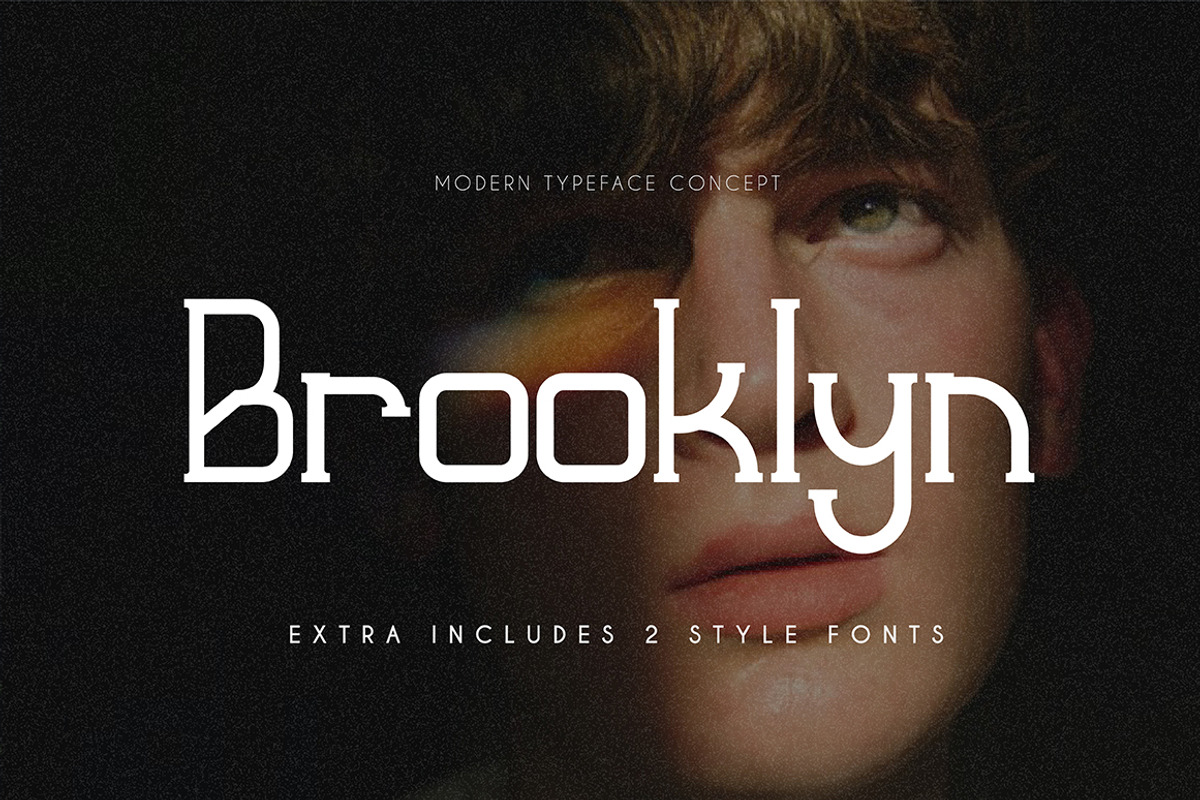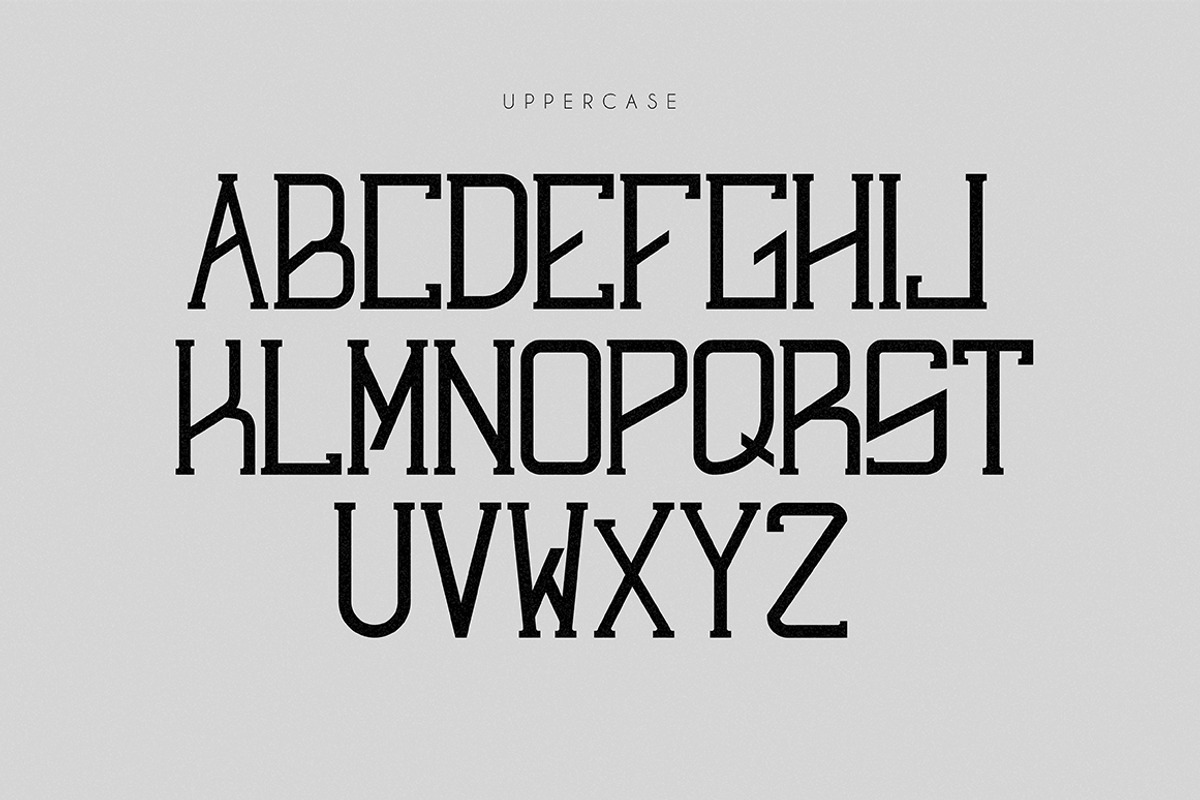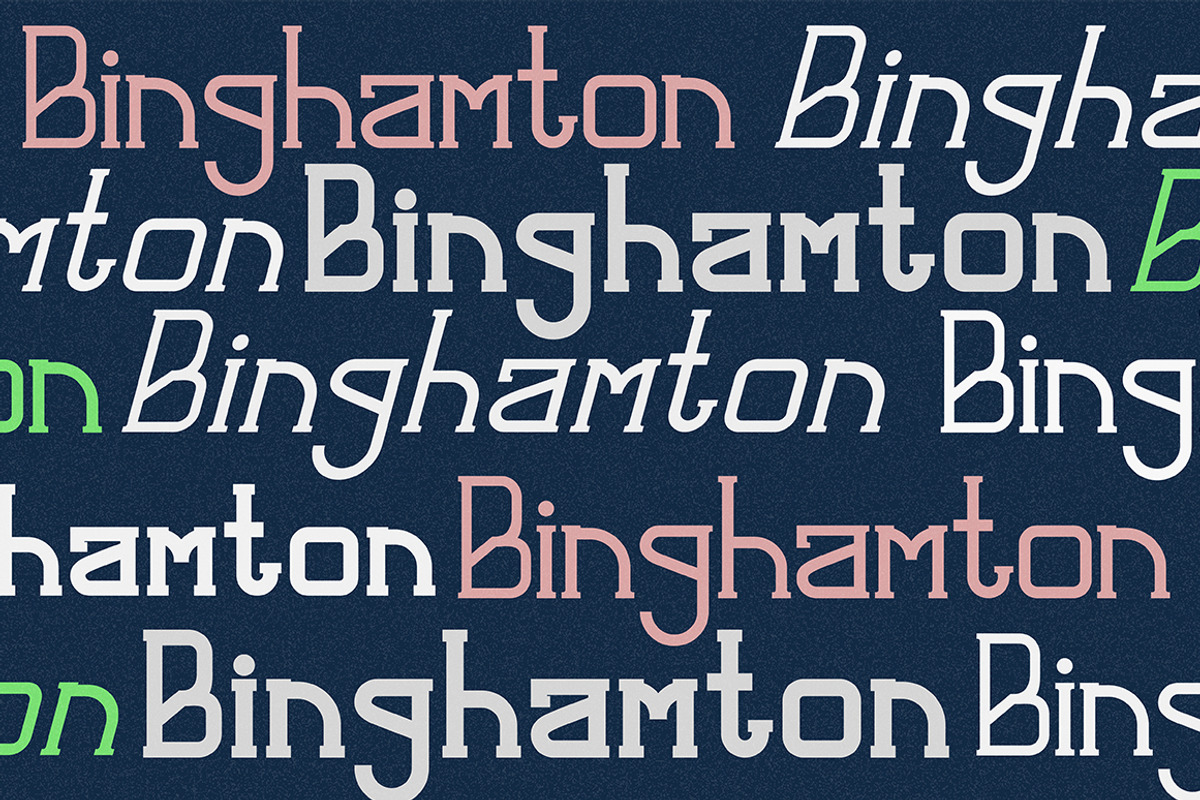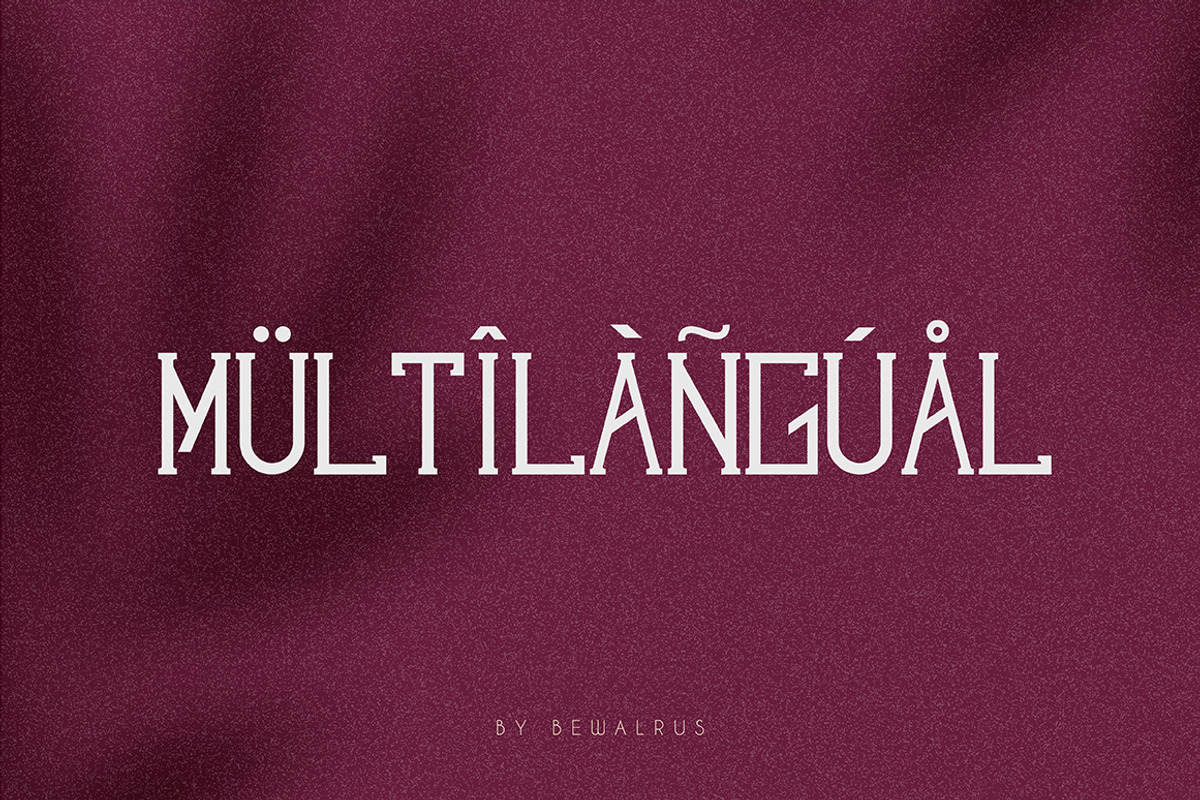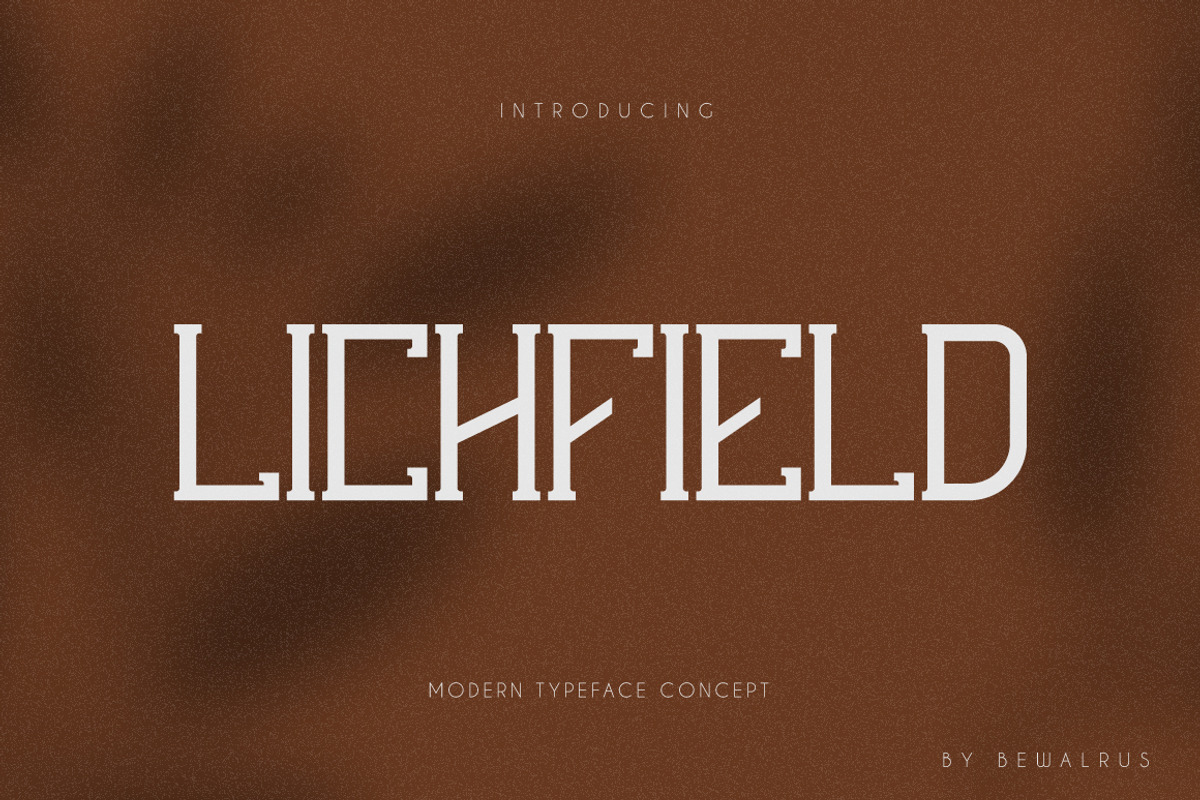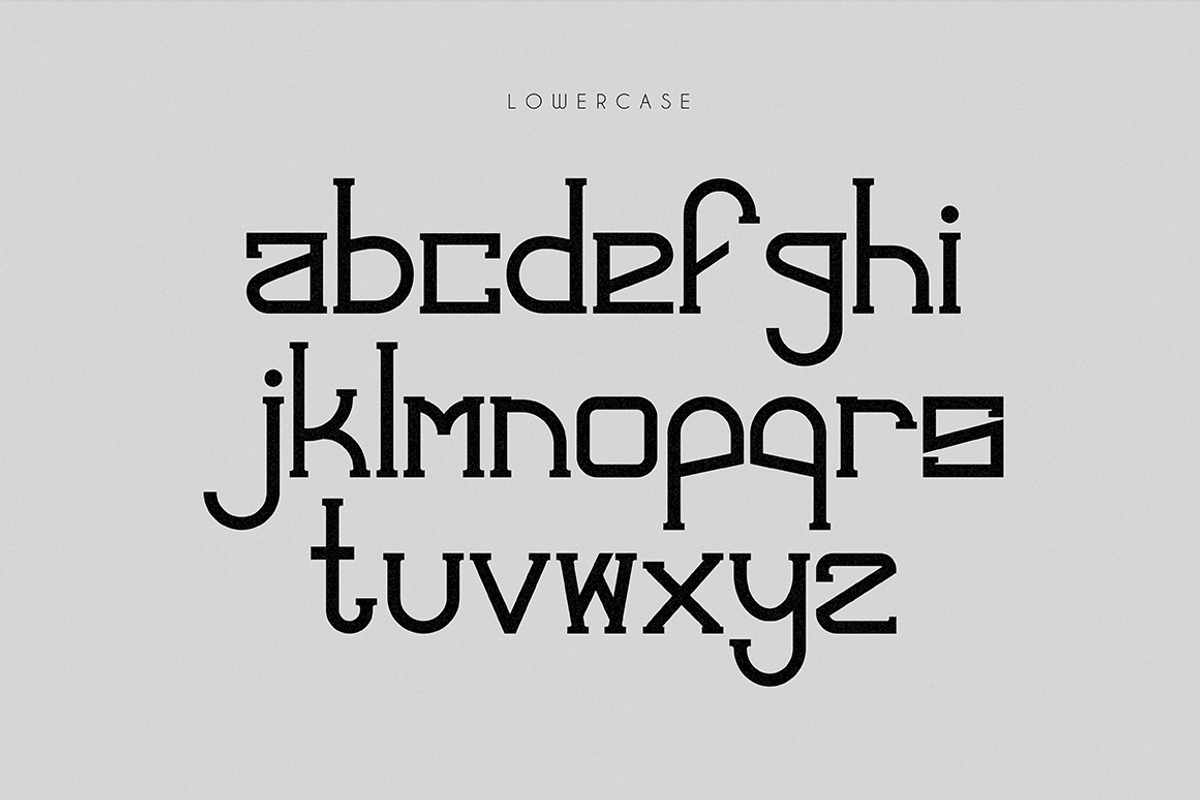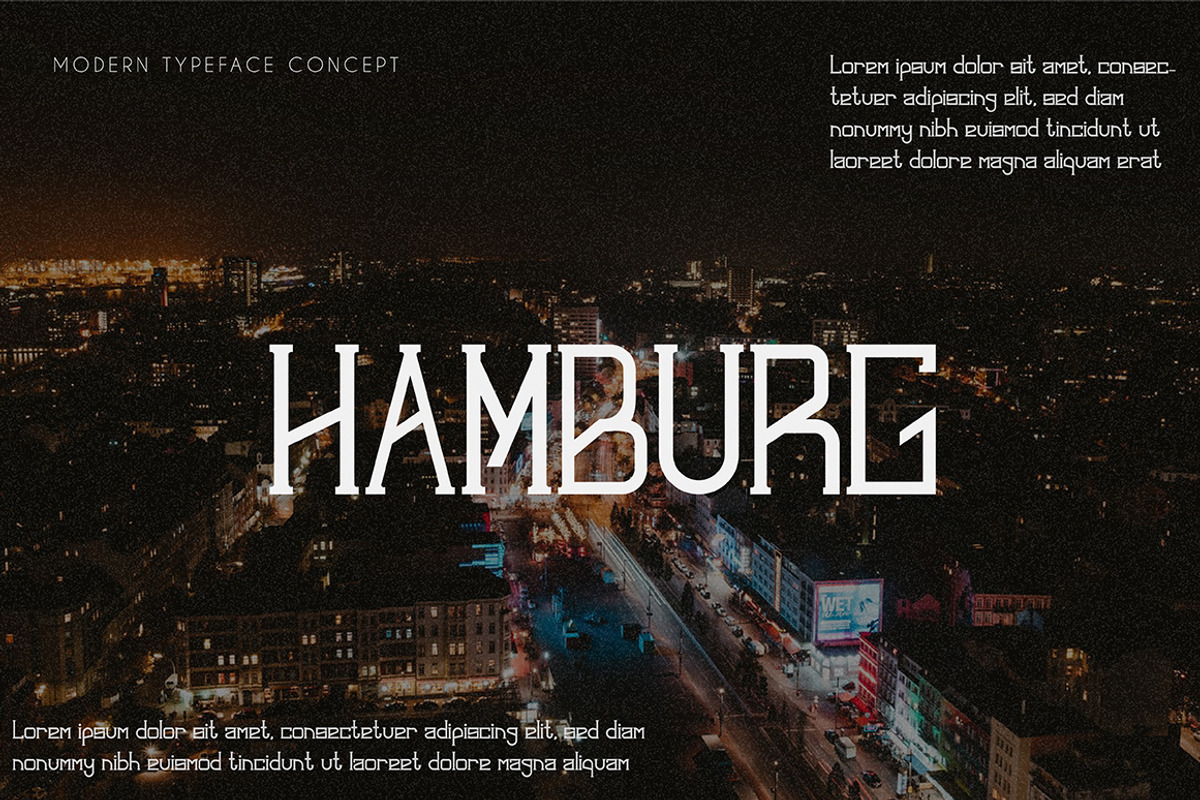
Lichfield | Serif Font
Lichfield is unique and elegant serif font. This font combine modern curves with little taste of classic. This font suitable for logo, advertising, product packaging, magazine header or label.